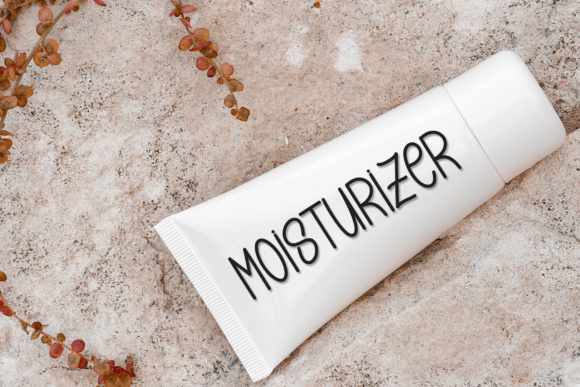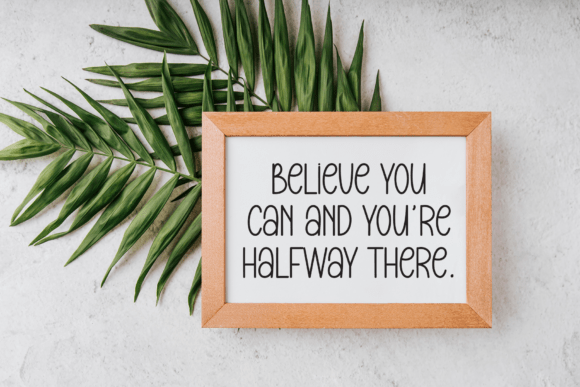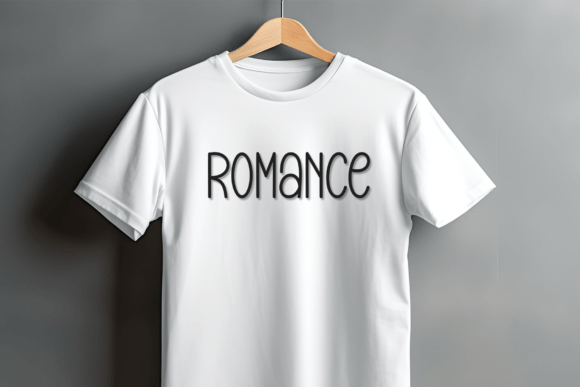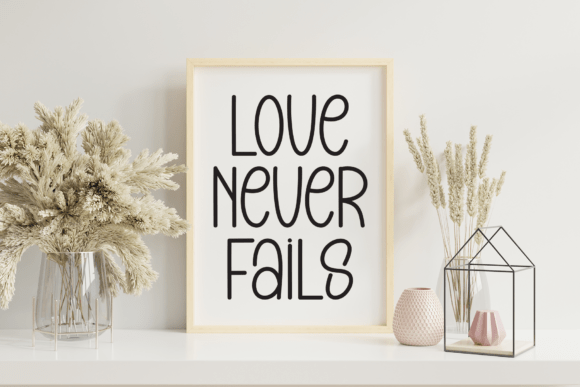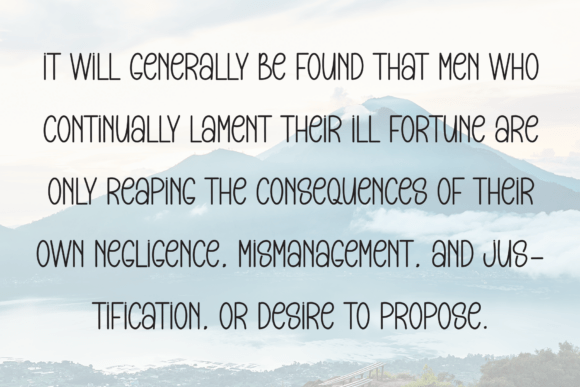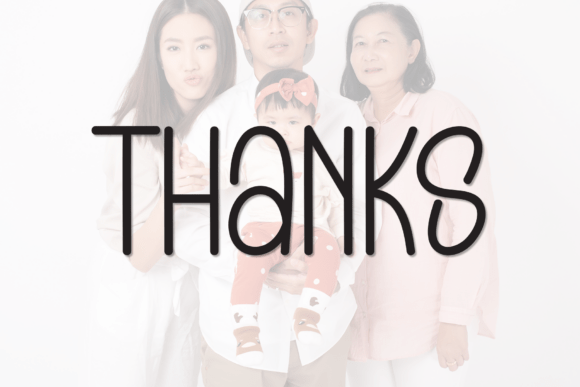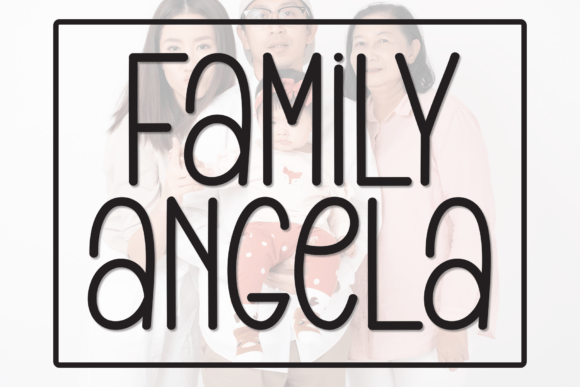
Simplicity Meets Warmth: The Family Angela Font
In the world of typography, few fonts manage to strike a balance between simplicity and warmth. However, the Family Angela font achieves just that, making it an excellent choice for designers and crafters looking to add a personal touch to their projects. This monoline, handwritten typeface is specifically designed to celebrate the bonds of home and family, featuring clean, consistent lines that evoke a sense of clarity and togetherness.
Exceptional Legibility and Versatility
One of the standout features of the Family Angela typeface is its exceptional legibility. This makes it a fantastic choice for a variety of applications, including family photo albums, home decor signage, and community-focused branding. The font’s clean lines and simple design ensure that your message is conveyed clearly, making it perfect for both digital and print projects.
The versatility of the Family Angela font is another one of its key benefits. Its tall, slender profile gives it a modern, “farmhouse-chic” aesthetic that is both trendy and timeless. This allows you to use the font in a range of heartwarming contexts, from creating personalized gifts and family reunion t-shirts to designing cozy kitchen wall art.
Aesthetic Appeal and Pairing Options
The Family Angela typeface boasts a unique aesthetic that pairs well with organic materials like wood and linen textures. This makes it an excellent choice for designers and crafters who work with natural materials or want to create a warm, inviting atmosphere in their projects. The font’s approachable style and clean lines provide a friendly canvas that lets your message of love take center stage.
Whether you are a small business owner crafting handmade goods or a parent documenting precious memories, the Family Angela font provides a versatile and attractive solution. Its modern aesthetic ensures that your projects look contemporary and stylish, while its warm and inviting feel adds a personal touch that resonates with audiences.
For designers and crafters, the Family Angela font offers a wide range of possibilities. Its exceptional legibility and versatility make it an excellent choice for a variety of projects, from branding and signage to gifts and personal mementos. The font’s clean lines and simple design ensure that it pairs well with a range of graphics, textures, and images, allowing you to create unique and eye-catching designs.
Some potential uses for the Family Angela font include:
• Family photo albums and scrapbooking
• Home decor signage and wall art
• Personalized gifts, such as t-shirts and mugs
• Community-focused branding and marketing materials
• Handmade goods and craft labels
In conclusion, the Family Angela font is a beautiful and versatile typeface that offers a unique combination of simplicity and warmth. Its exceptional legibility, modern aesthetic, and approachable style make it an excellent choice for designers and crafters looking to add a personal touch to their projects. Whether you are creating family photo albums, home decor signage, or personalized gifts, the Family Angela font provides a clean, friendly canvas that lets your message of love take center stage.